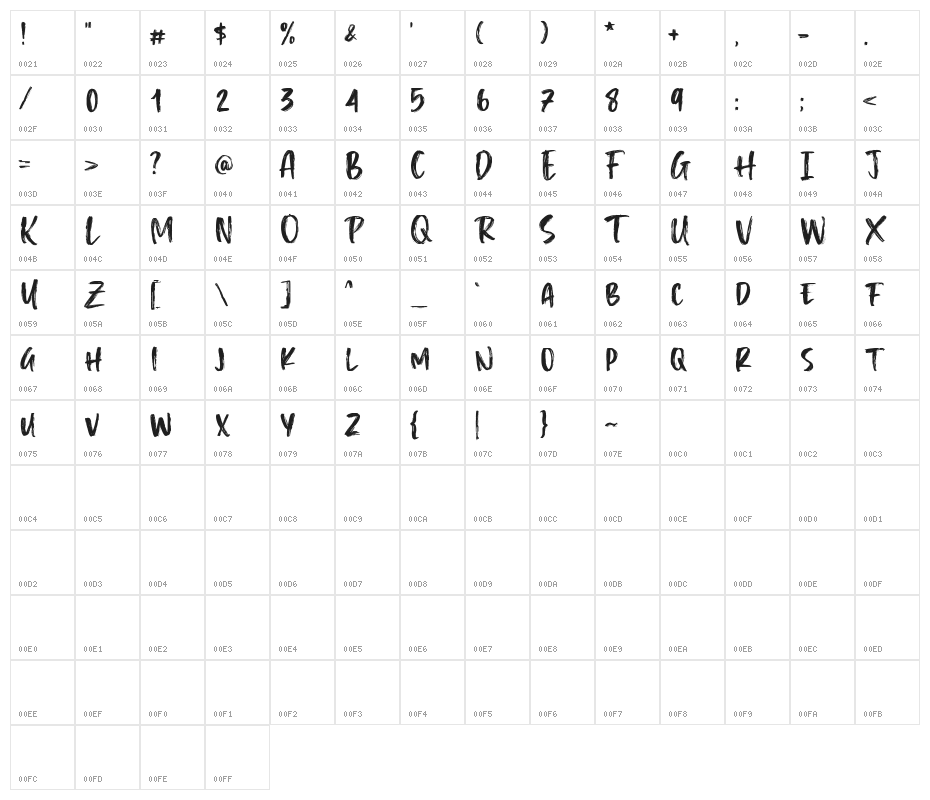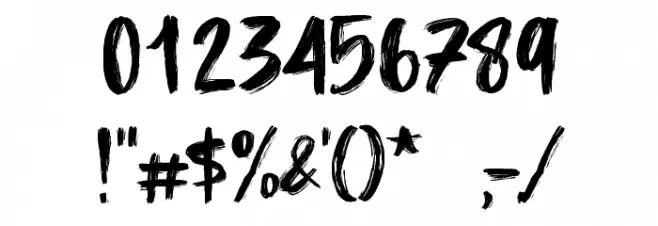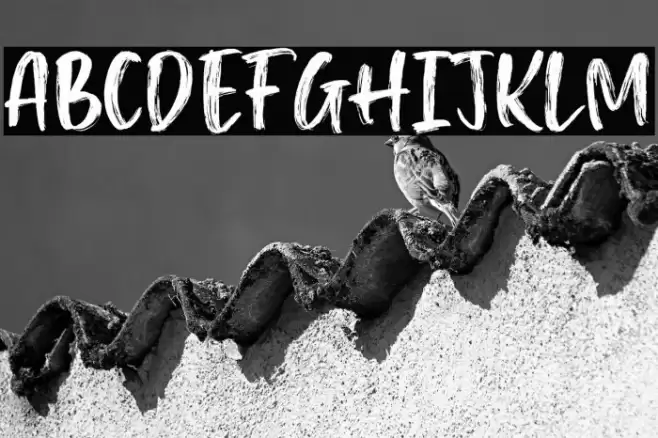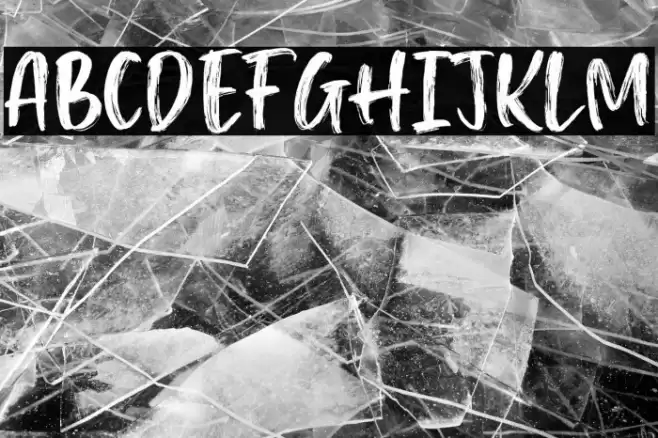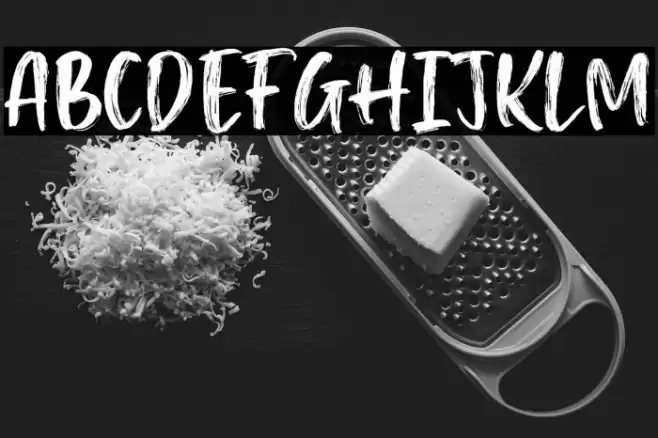
Cinemair Font
Cinemair Description
This font features a bold, expressive style with a hand-painted appearance. The strokes are dynamic and energetic, giving each character a unique, artistic flair. The letters have a rough texture, reminiscent of brush strokes, which adds to its handcrafted feel. The uppercase and lowercase letters maintain a consistent style, with slightly irregular edges that enhance its organic look. Numbers and special characters follow the same aesthetic, ensuring a cohesive design throughout. This font is perfect for projects that require a personal touch or a bold statement.
| Proposed Projects | Ideal for artistic posters, branding, packaging, and any design requiring a bold, handcrafted look. |